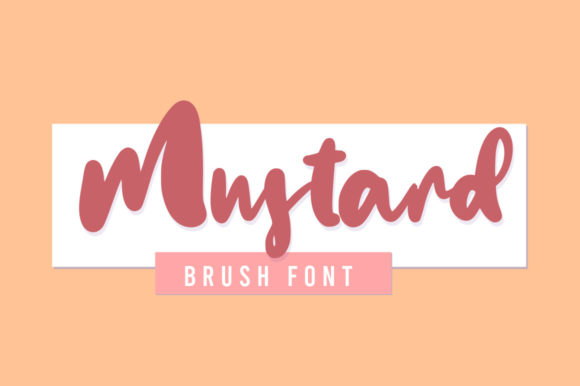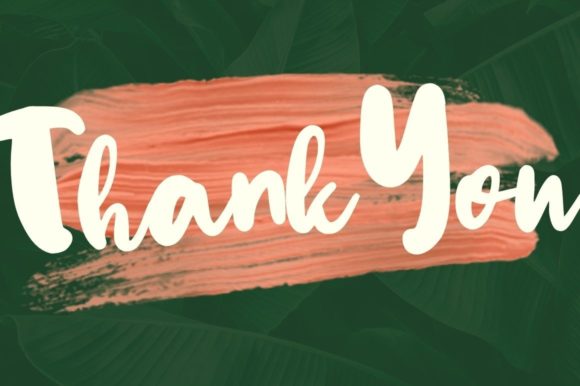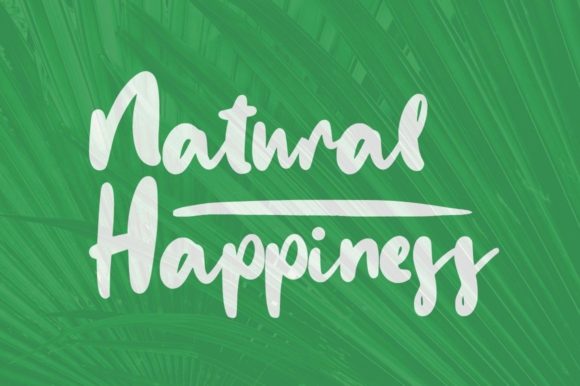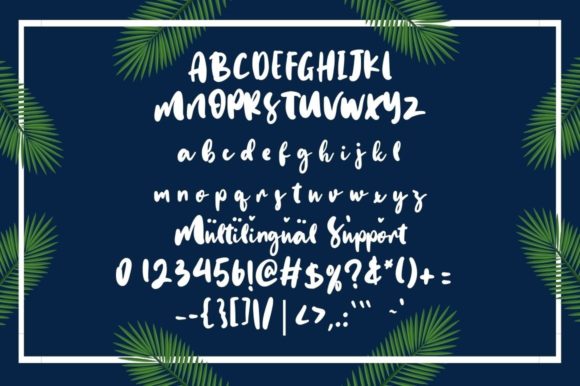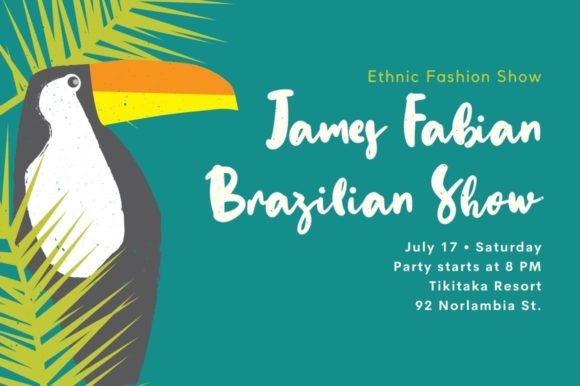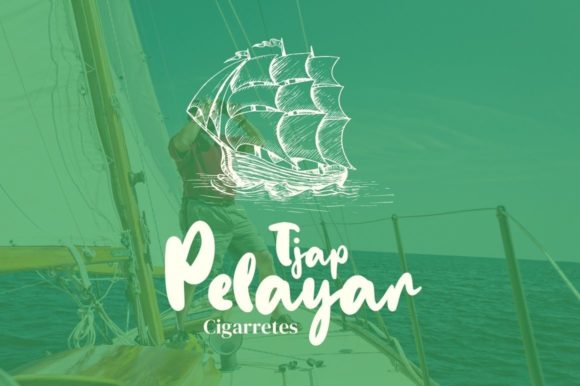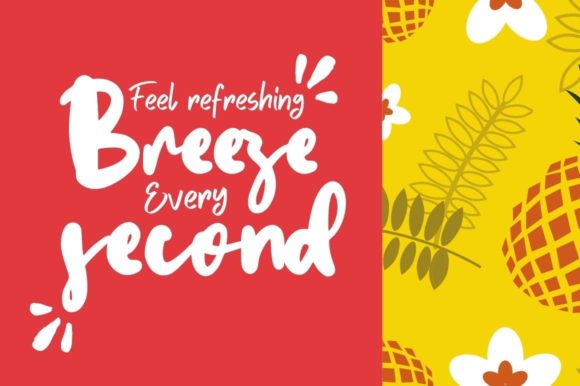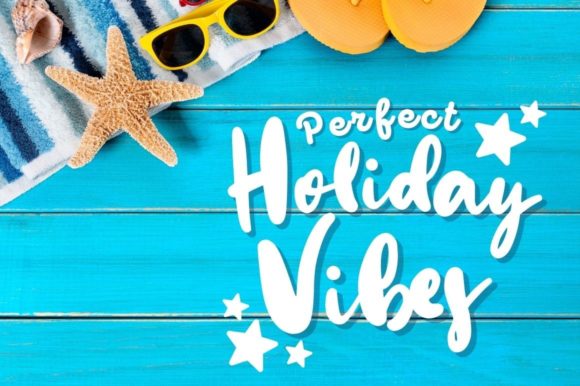
About Mustard Font
Mustard is a beautiful, relaxed and paint brushed script font. It is defined by smooth curves and is perfect for fashion branding or editorial designs. Add it confidently to your projects, and you will love the results.